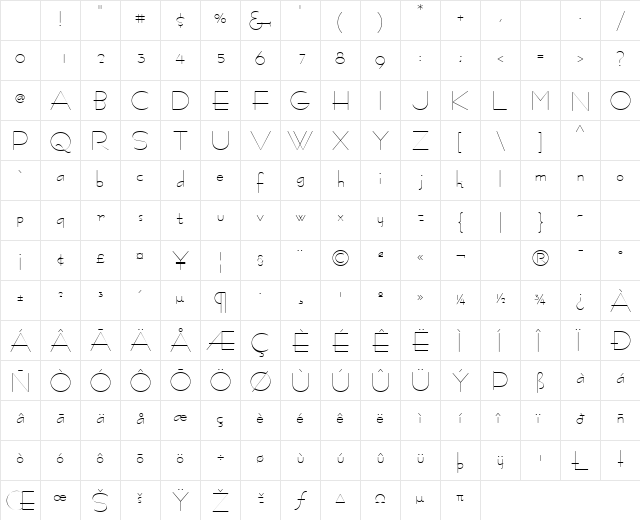
Complete Bernhard Fashion ICG Regular glyph index. Displaying only characters natively supported by Bernhard Fashion ICG Regular font.
Bernhard Fashion ICG is a composed and adaptable typeface that performs quietly and consistently across a wide range of design contexts.